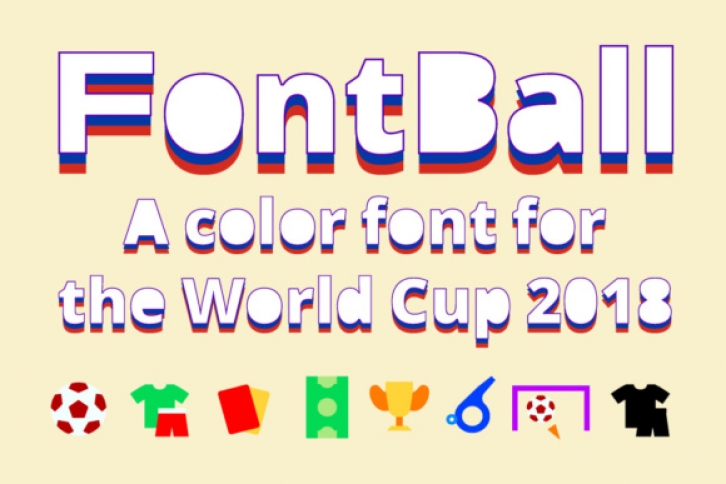
Who isn’t excited by the World Cup 2018? This amazingly festive color font is a great way to give your work a charming and easy feel! This is a 3 layer color font inspired by the host country’s flag, and comes with 8 smart icons.